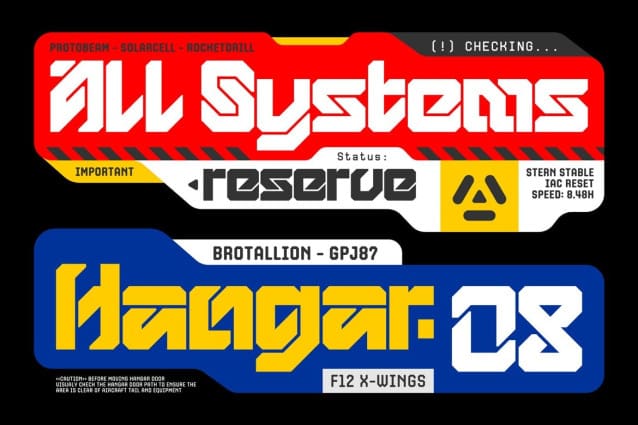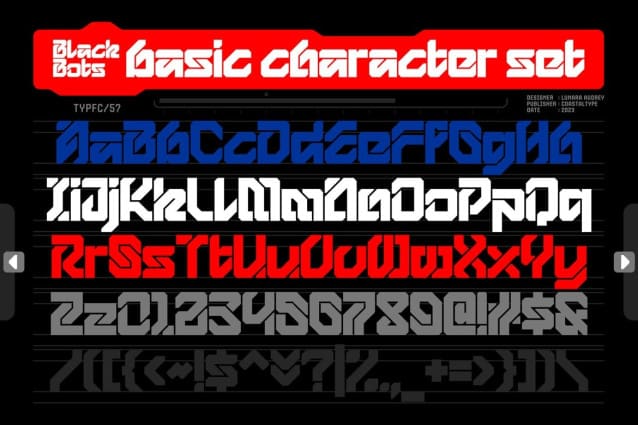
Blackbots Futuristic Font
Blackbots Futuristic Font: the cyber dystopia typeface that brings a gritty realism to your mechanized creations. Crafted with meticulous attention to detail, BlackBots is tailor-made to adorn the exteriors of mechs, tanks, or hangars, particularly those with a cyberpunk aesthetic. However, its versatility extends far beyond the realm of cyber dystopia, seamlessly blending into various styles with its adaptable nature.
With its sleek yet rugged design, BlackBots injects a futuristic edge into any visual narrative, immersing audiences in the stark, shadowy universe of tomorrow. Embrace the essence of technological warfare and industrial prowess as BlackBots stamps its authority on your designs, leaving an indelible mark of sophistication and authenticity.
Experience the power of BlackBots and redefine the visual landscape with a typeface that embodies the spirit of a cyber dystopian future, while effortlessly transcending boundaries to complement any design style.